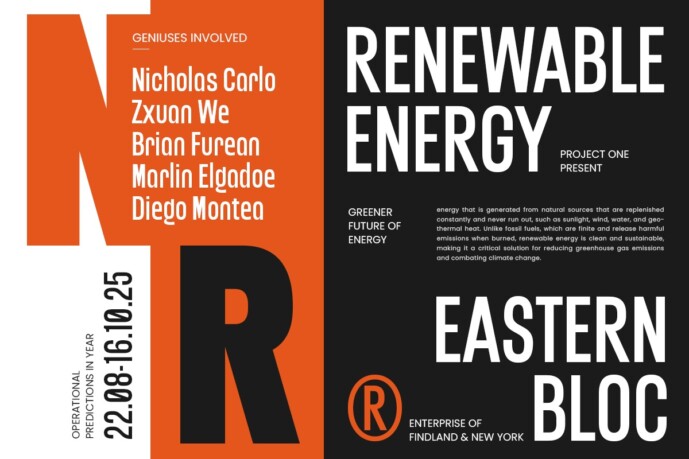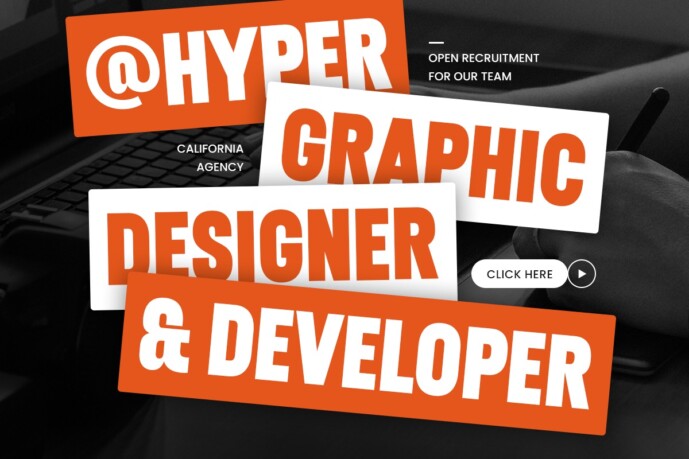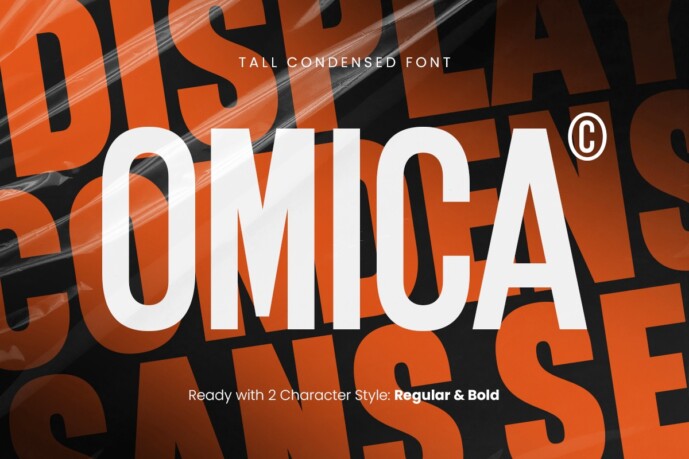
Omica Font
Omica Font is a tall, condensed font designed to bring a bold touch to any project. Its elegant, elongated shapes add a modern, stylish touch, perfect for branding, editorial layouts, and punchy headlines. Omica’s unique vertical proportions create a distinctive look that captures attention while maintaining readability.
Precision-crafted, Omica brings a professional touch to your work, allowing designers to maximise space without compromising style. The tall, narrow letters are ideal for projects where visual hierarchy and a contemporary feel are essential. From magazine headlines to product packaging and branding, Omica ensures a refined yet striking presence.
Omica’s versatility makes it suitable for many applications, from fashion and lifestyle to corporate and creative industries. Add this exceptional font to your toolbox to bring a modern and sophisticated touch to your designs.